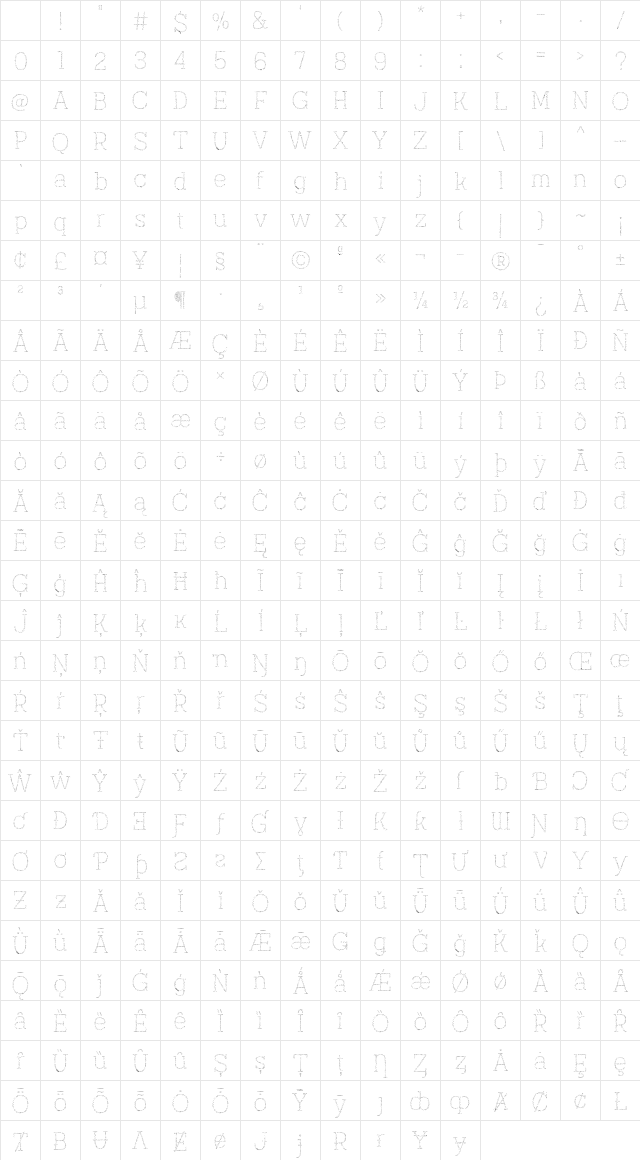
Complete Austral Slab Maplines Thin glyph index. Displaying only characters natively supported by Austral Slab Maplines Thin font.
Austral Slab features prominent, blocky serifs that give it a confident, grounded presence - equally at home in editorial settings and bold branding work. Its slender proportions lend an understated elegance to any composition.
Pro Tip: Use Austral Slab for headlines and subheadings where its slab serifs can make an impression. It also holds up well in mid-size body copy thanks to its sturdy construction.
Who designed the Austral Slab Maplines Thin font?